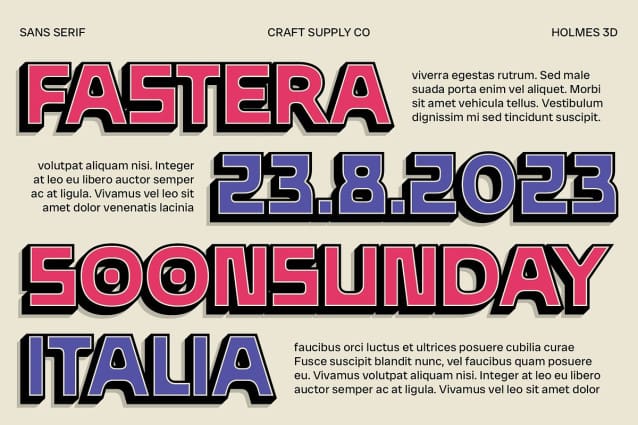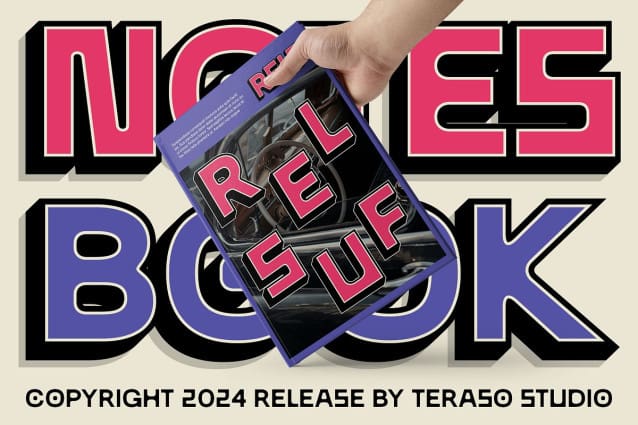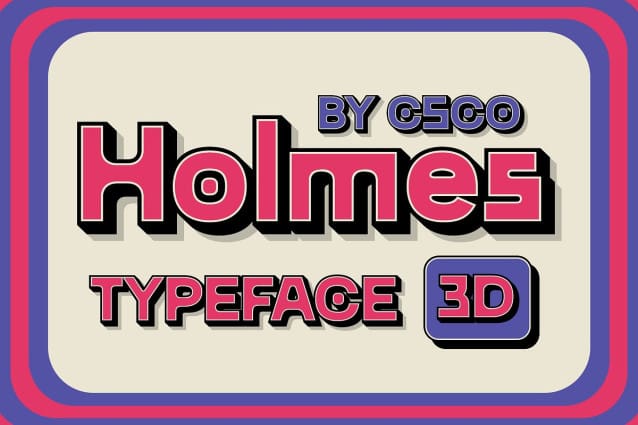
CS Holmes 3D Font
CS Holmes 3D Font is a sans-serif font that combines modern style with a strong industrial touch and a 3D dimensional effect. Its clean lines and industrial-inspired design make it suitable for designs aiming to convey a tough, professional, and attention-grabbing impression.
Ideal for Various Designs Perfect for logos, titles, promotional graphics, and other projects, CS Holmes 3D ensures your text stands out and commands attention. Its 3D effect enhances the visual appeal, making it an excellent choice for designs that require a strong and impactful font.
Versatile and Impressive Despite its industrial aesthetic, this CS 3D font remains versatile and impressive. Its sans-serif format makes it suitable for a wide range of projects where a font that combines modernity with an industrial touch is essential for making a statement.
Perfect for Adding a Solid Touch CS Holmes 3D is ideal for projects requiring a font with a solid touch. Whether you’re designing a logo, title, or promotional graphic, this font will undoubtedly add a distinct and memorable element to your designs.